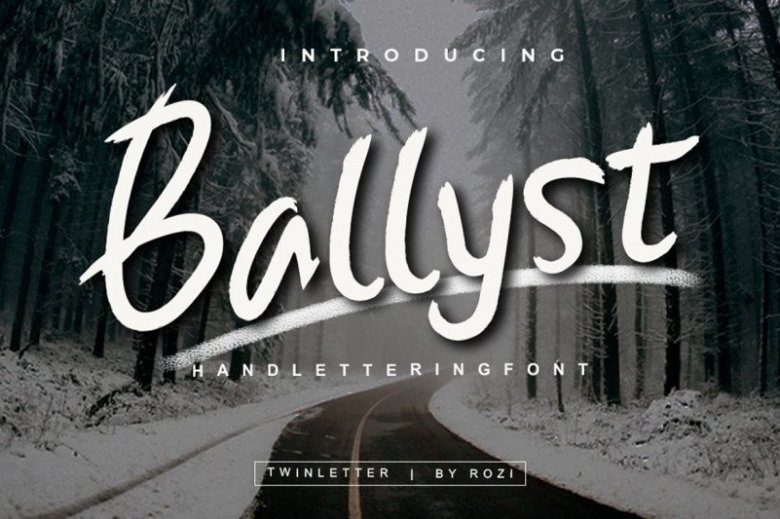
Ballyst Brush Font
Ballyst is a cute and casual brush font with an incredibly relaxed and friendly feel. Use this gorgeous and unique font to bring any DIY project to life!